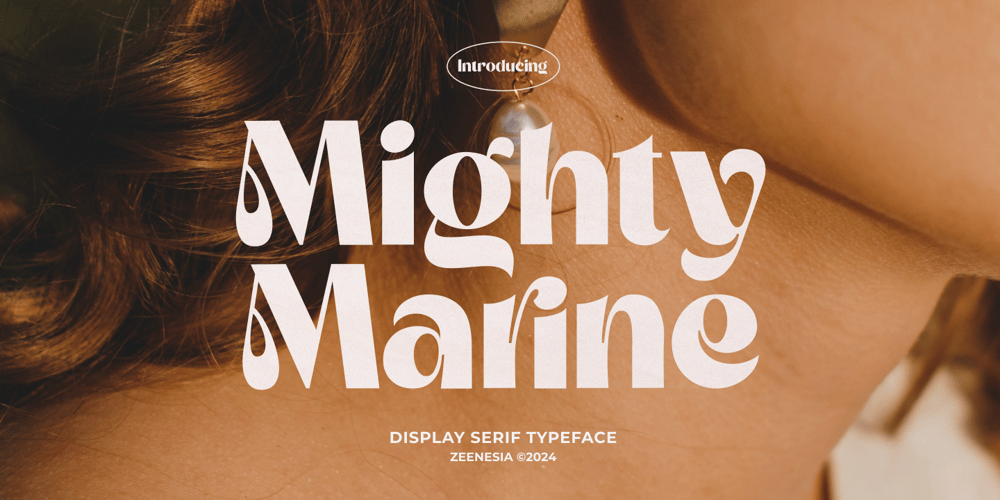
Mighty Marine Font Family was designed by Doni Purwoko and published by Zeenesia Studio. Mighty Marine contains 1 styles and family package options. Mighty Marine is a Bold vintage style serif font with strong character and soft features. modern and classic serif font with a clear and bold look. It’s a very versatile font that works great in large. Mighty Marine was built with Open Type features, stylistic Alternate and Ligature makes your project will be awesome!Perfect for editorial projects, Logo design, web font, clothing branding, product packaging, magazine headers, or simply as a stylish text overlay to any background image.